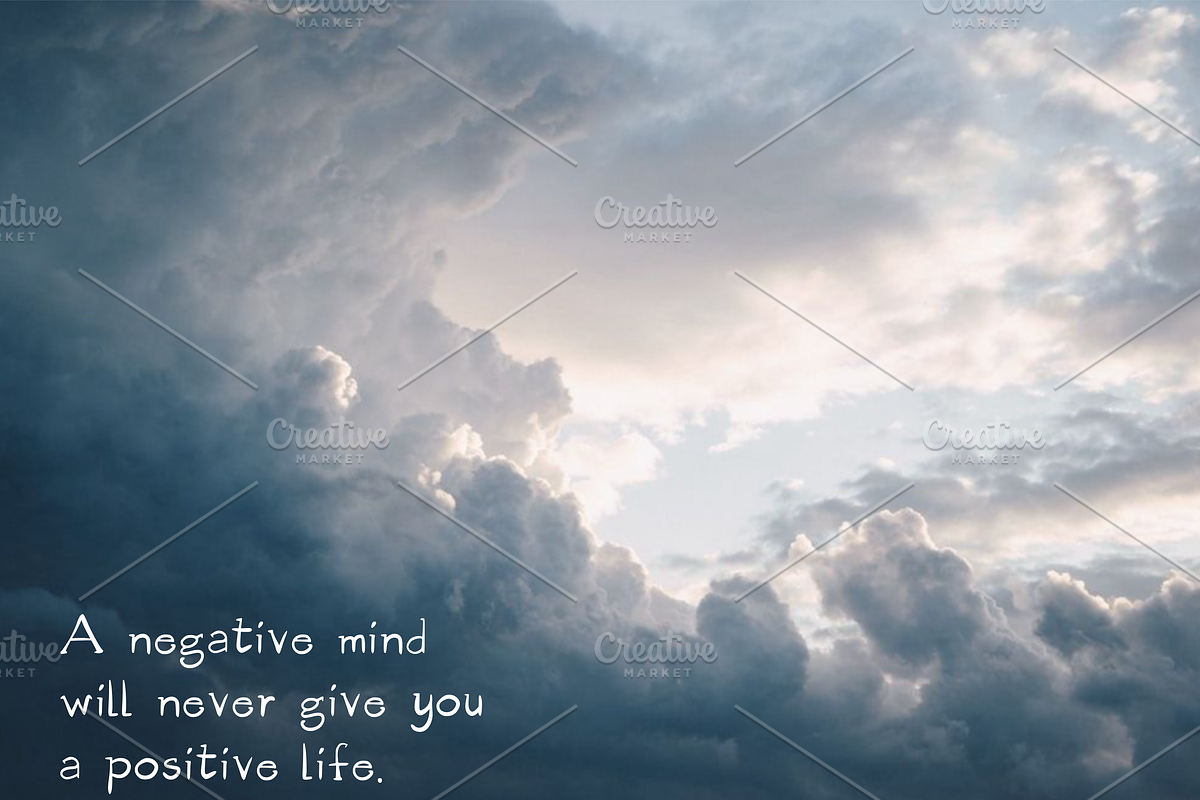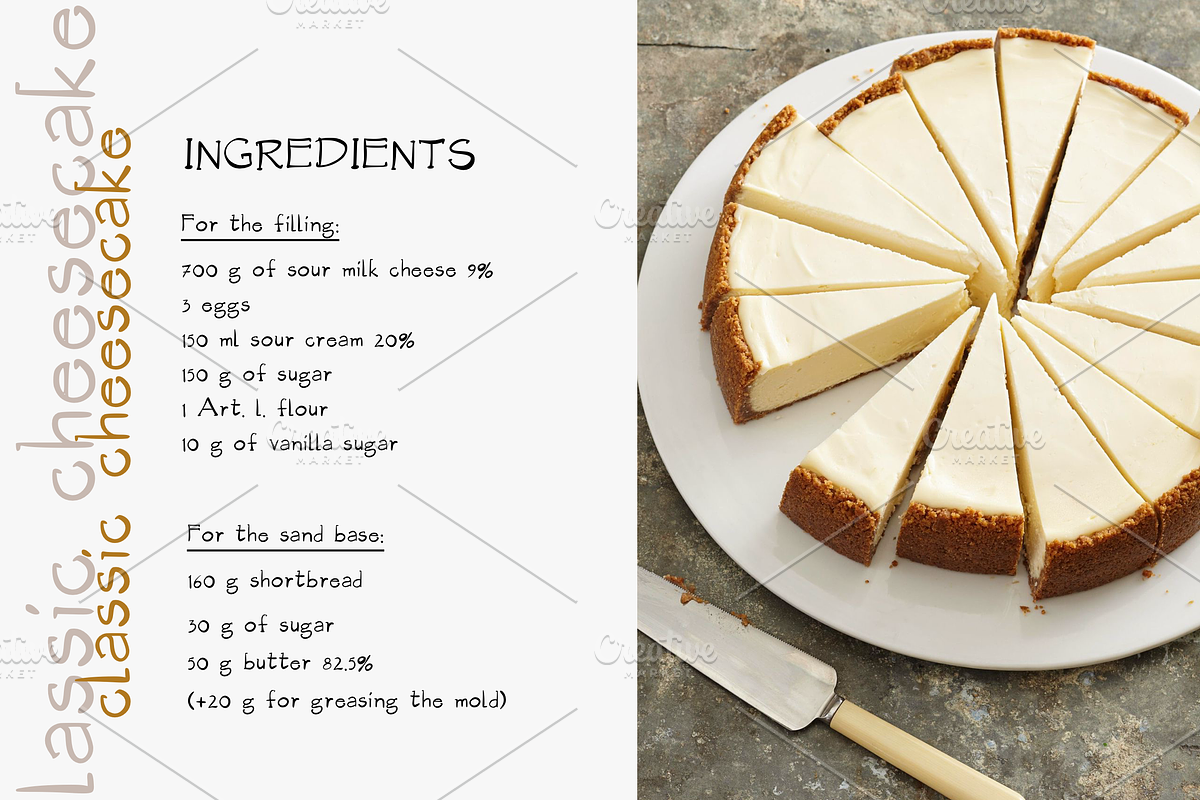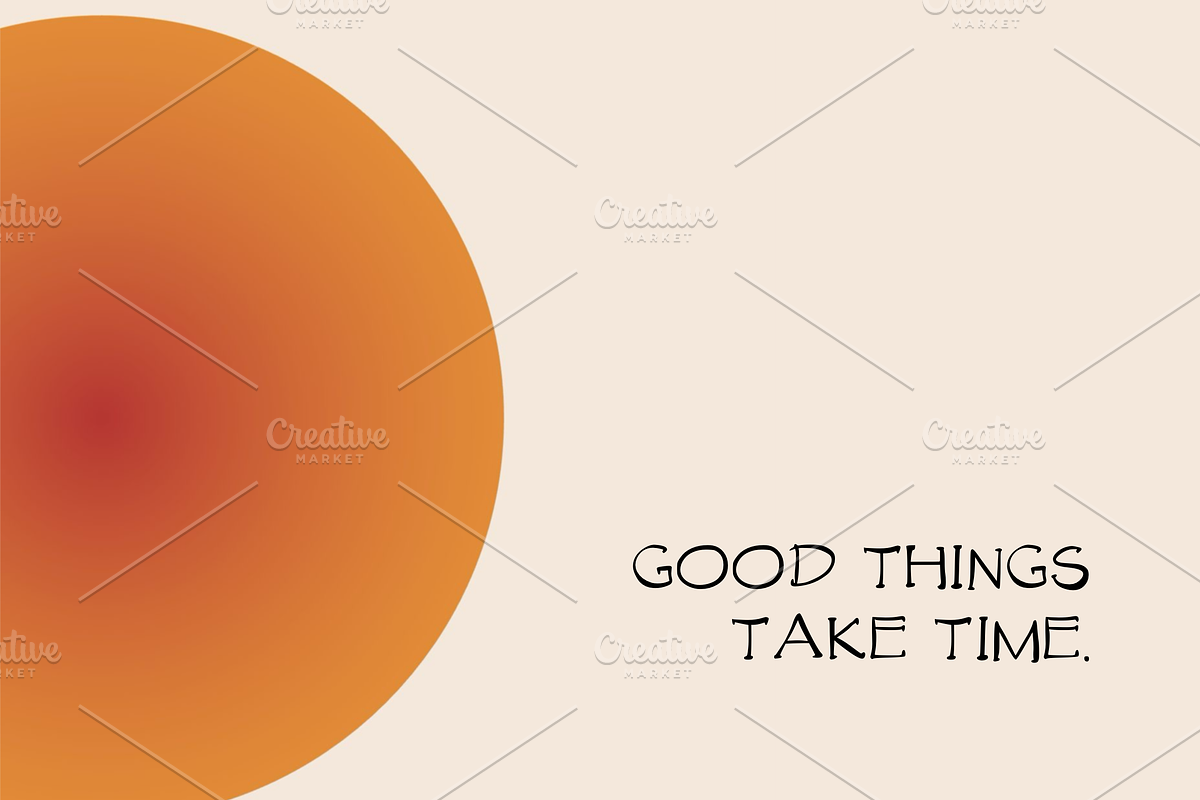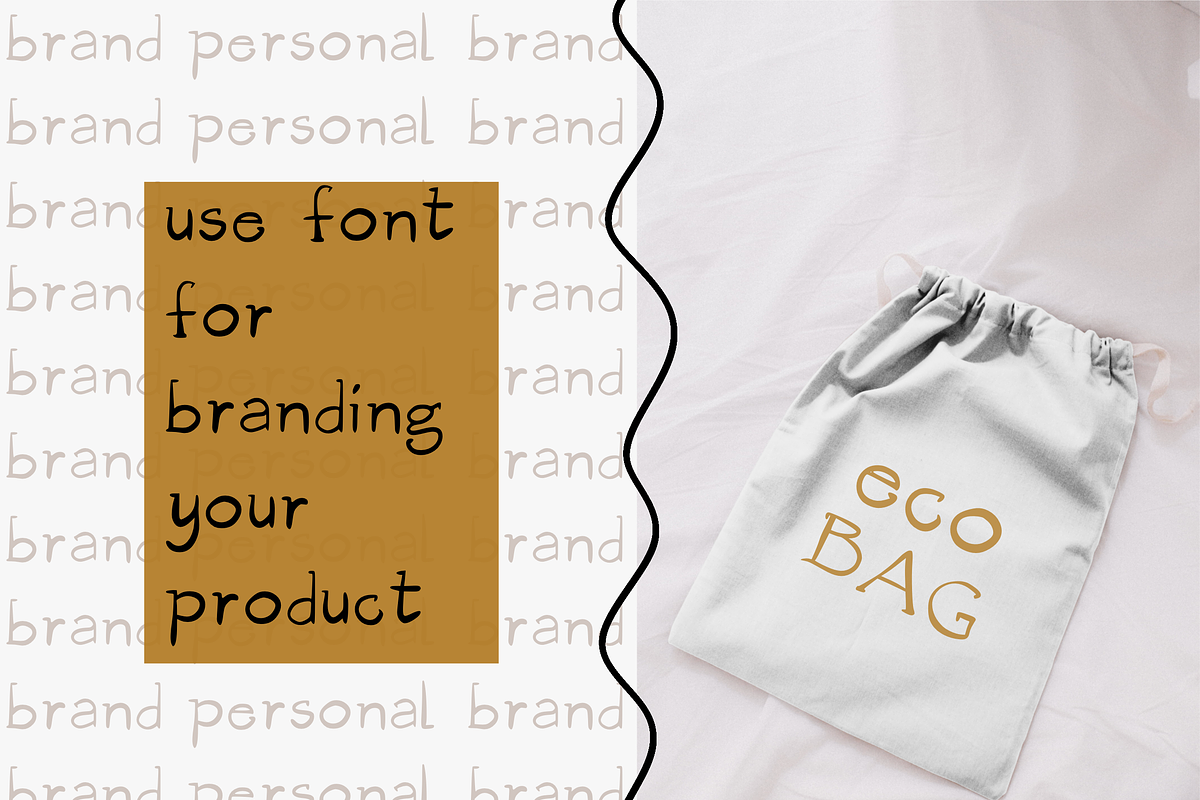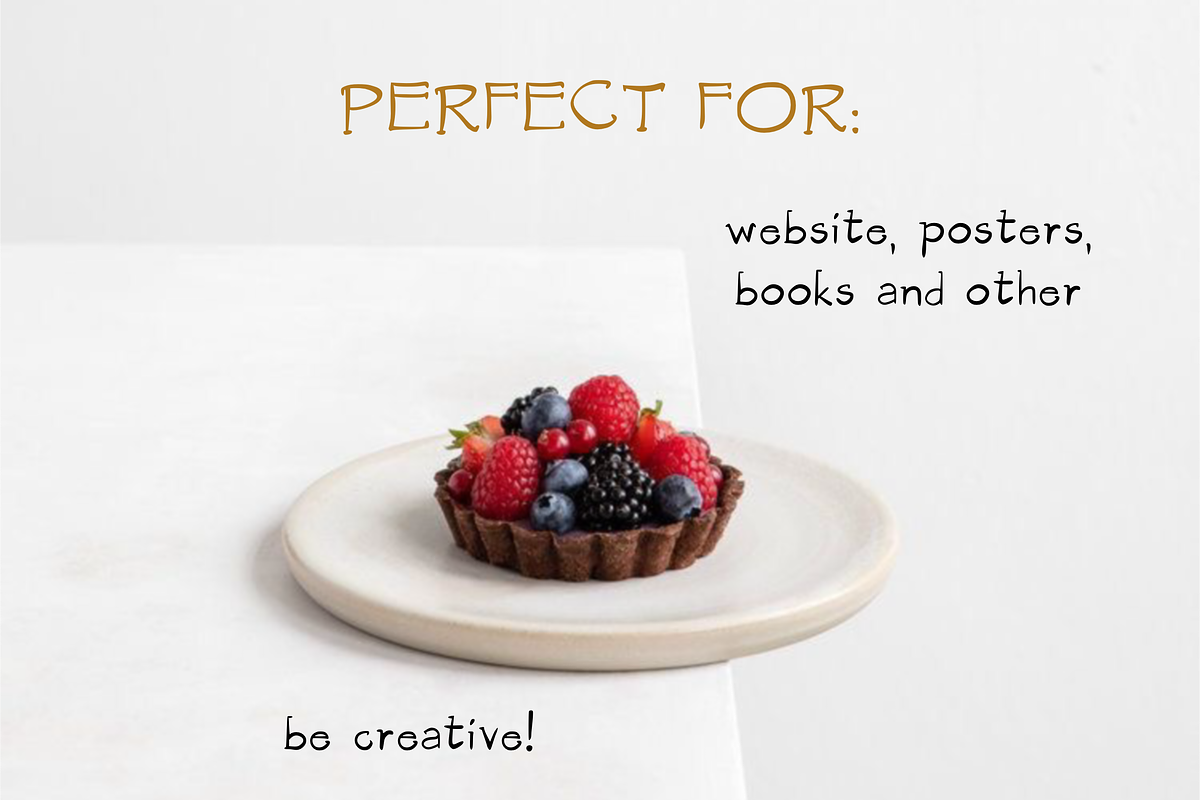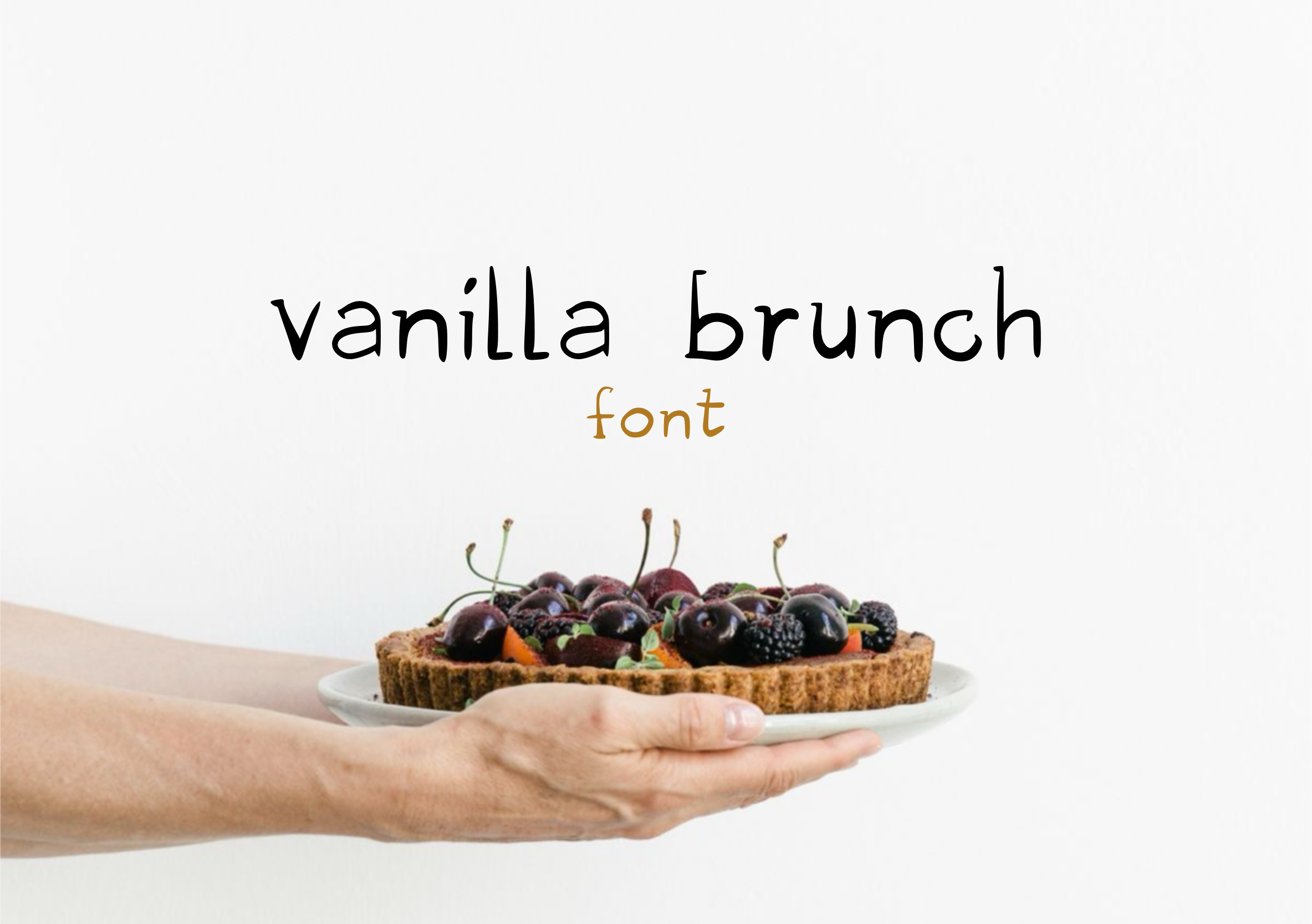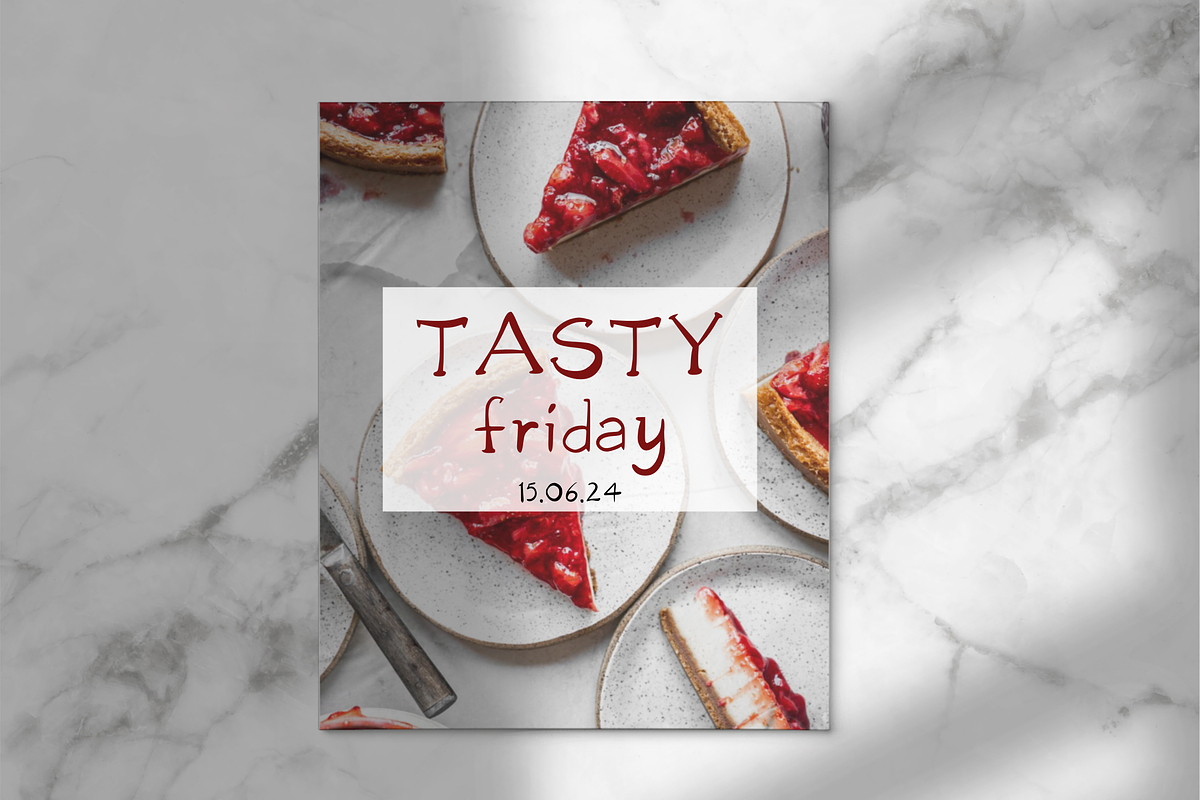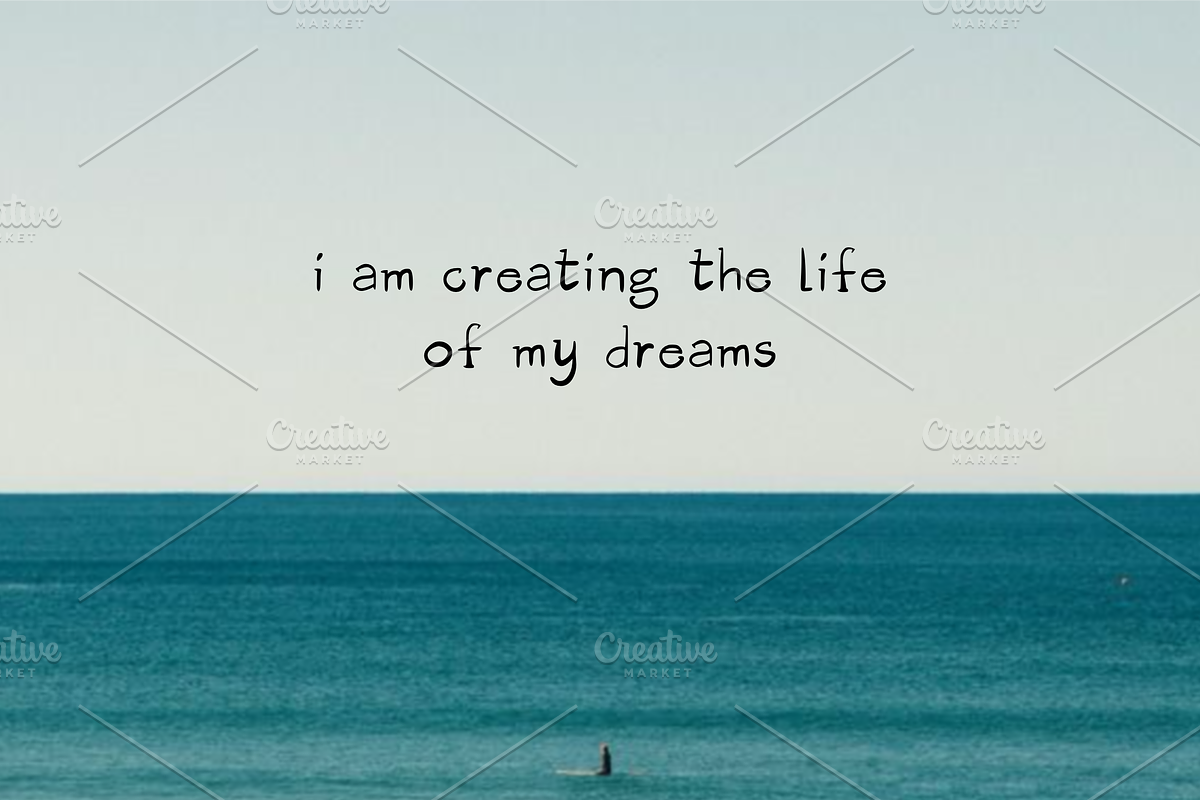
Vanilla brunch font
vanilla brunch font - are handwritten that looks so cute. Perfect for posters, flyers, social media posts, for playful branding & quotes, for quiry packaging and so much more!